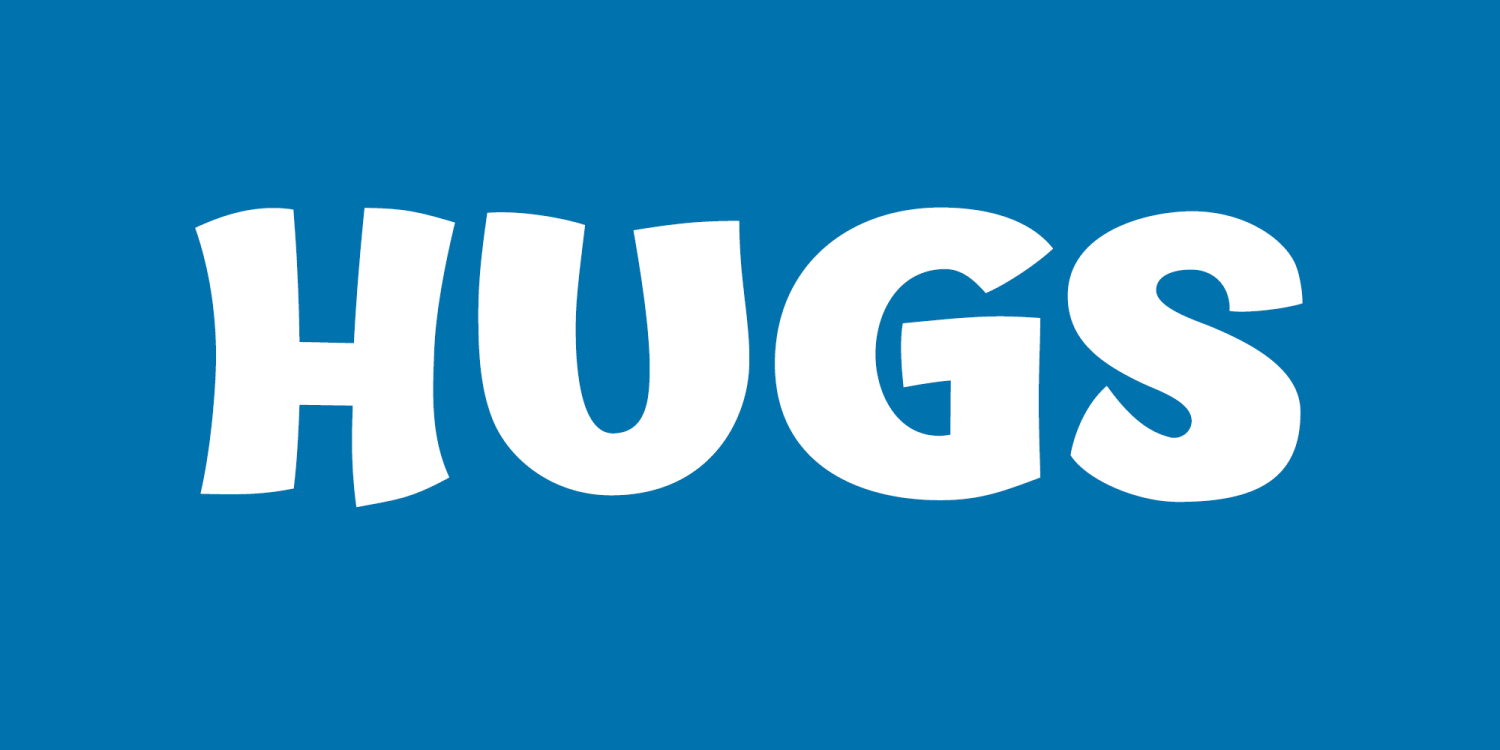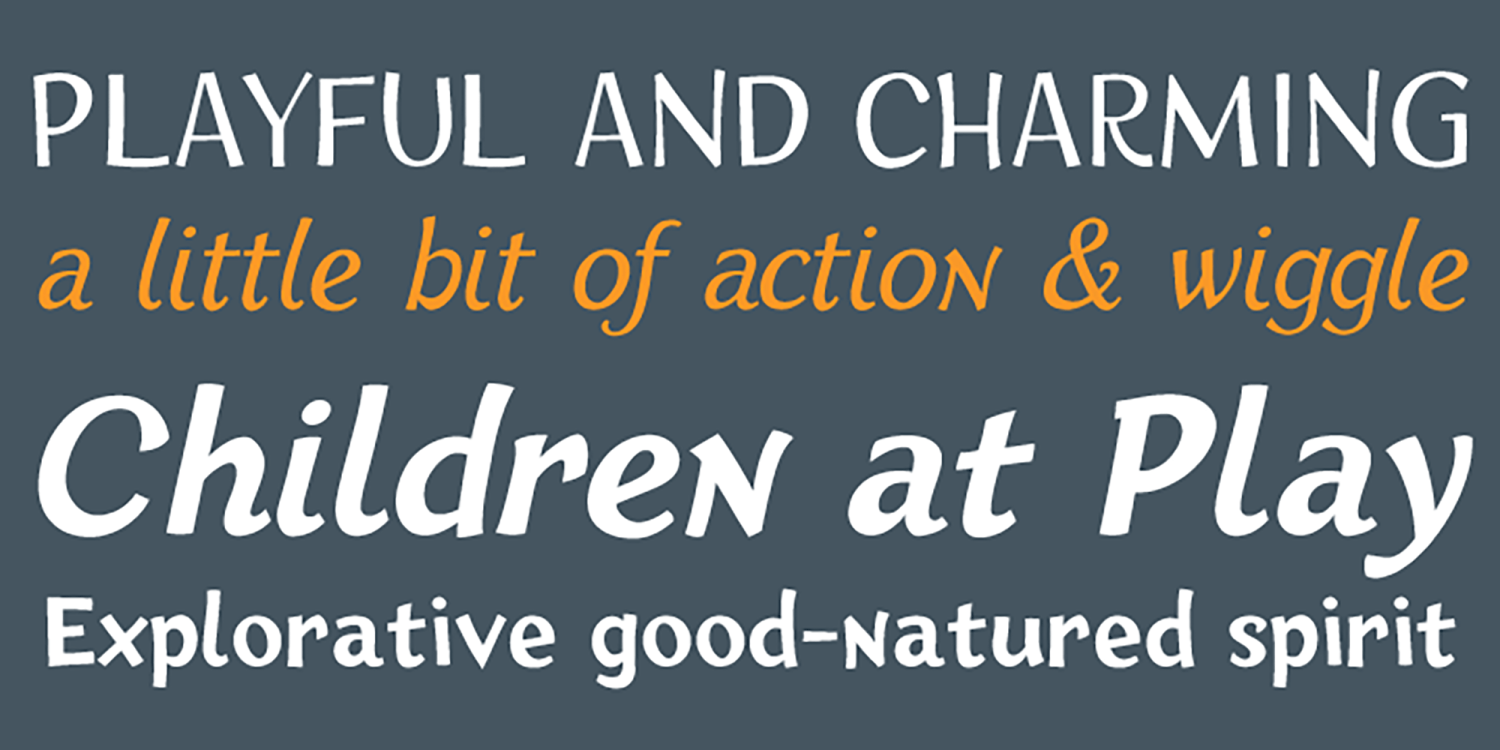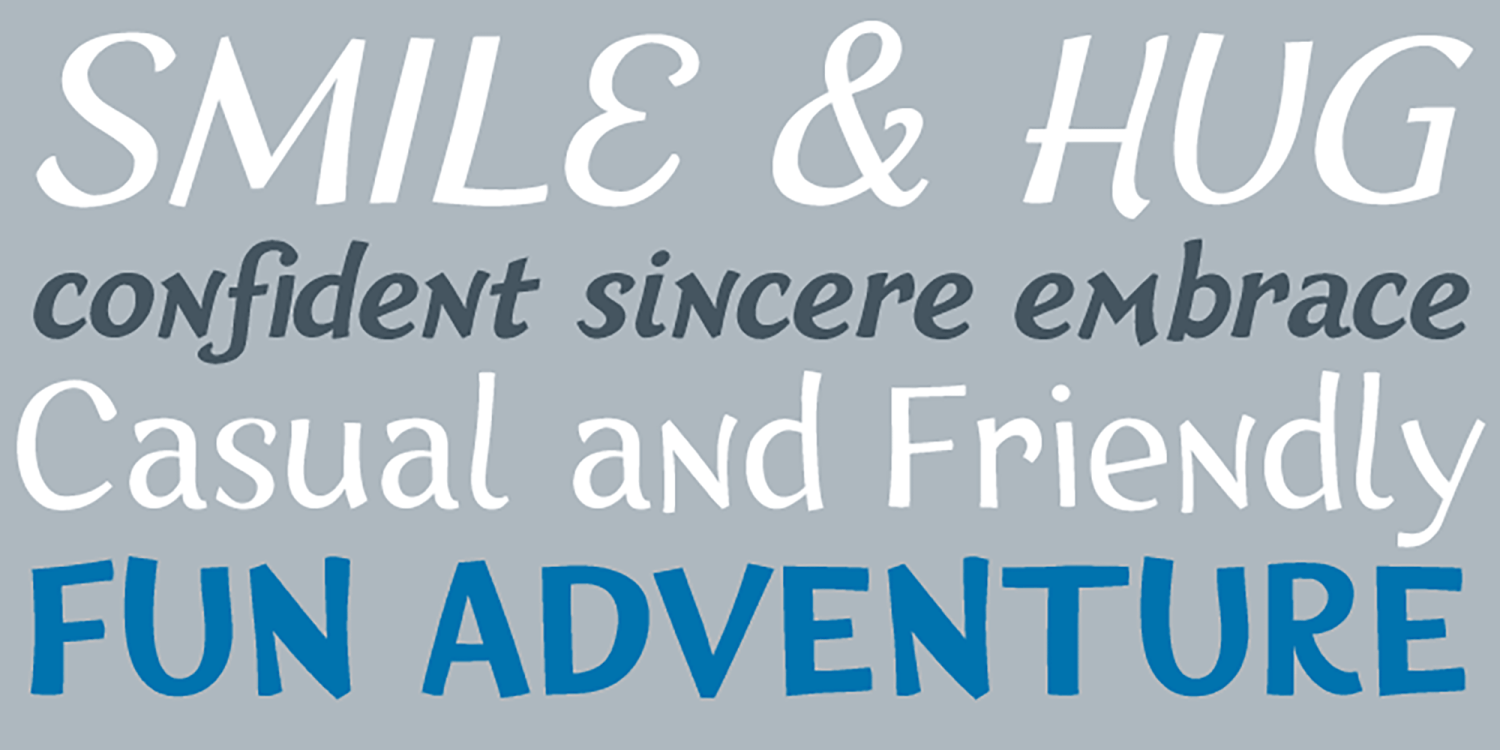
HUGS
Font Family by Chank Co
HUGS is a warm friendly display font family offering comfort, joy and friendship. It's just a bit bouncy, and the shapes all bend a bit as if they're being squeezed, but there's an overall smile and expressions of glee in these fonts. Such a welcome alternative to boredom, from Regular to Bold to Extra Bold, with fresh flowing swooshy Italics for each, HUGS is sure to make your day just a bit better.